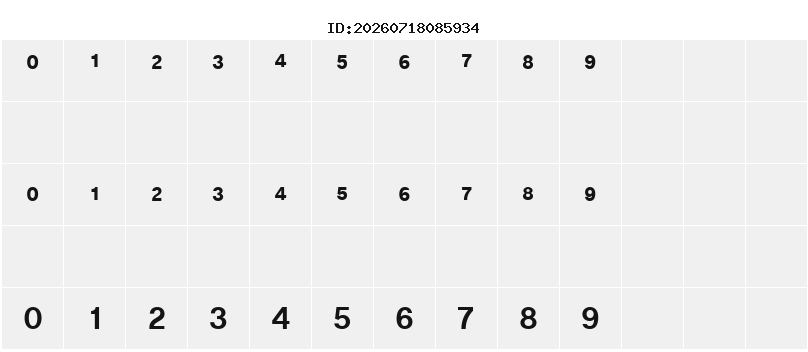
• Font Name: ChaletBookTTFrac
• Full Font Name: ChaletBookTTFrac Bold
• Designer: House Industries
• Manufacturer: House Industries/Brand Design Co. Inc,
• Description: Created for the House Book.
About ChaletBookTTFrac.ttf
ChaletBookTTFrac.ttf is a modern, elegant sans-serif font designed for ultimate readability and visual harmony. Perfect for branding, headlines, web design, and print materials.